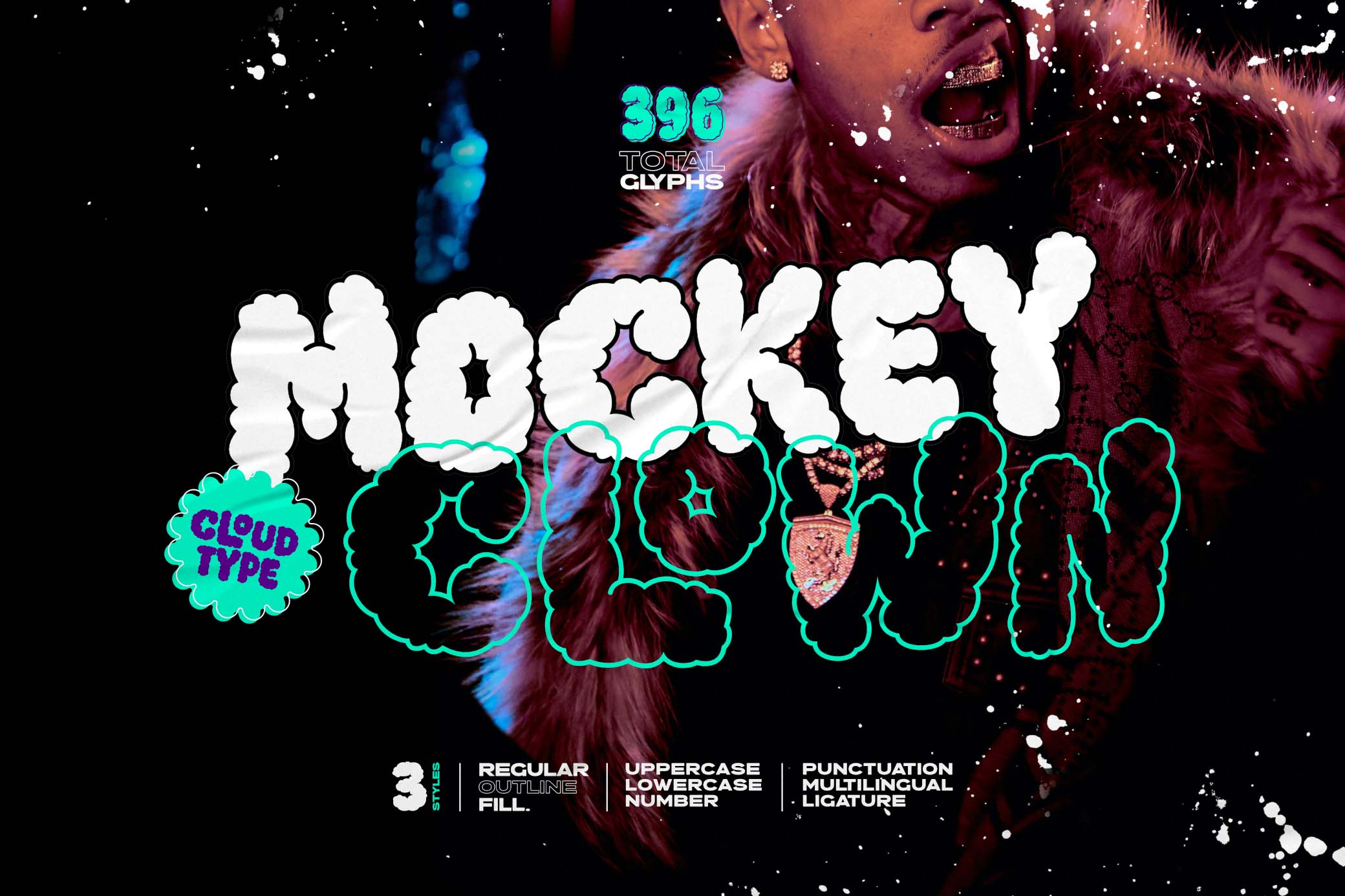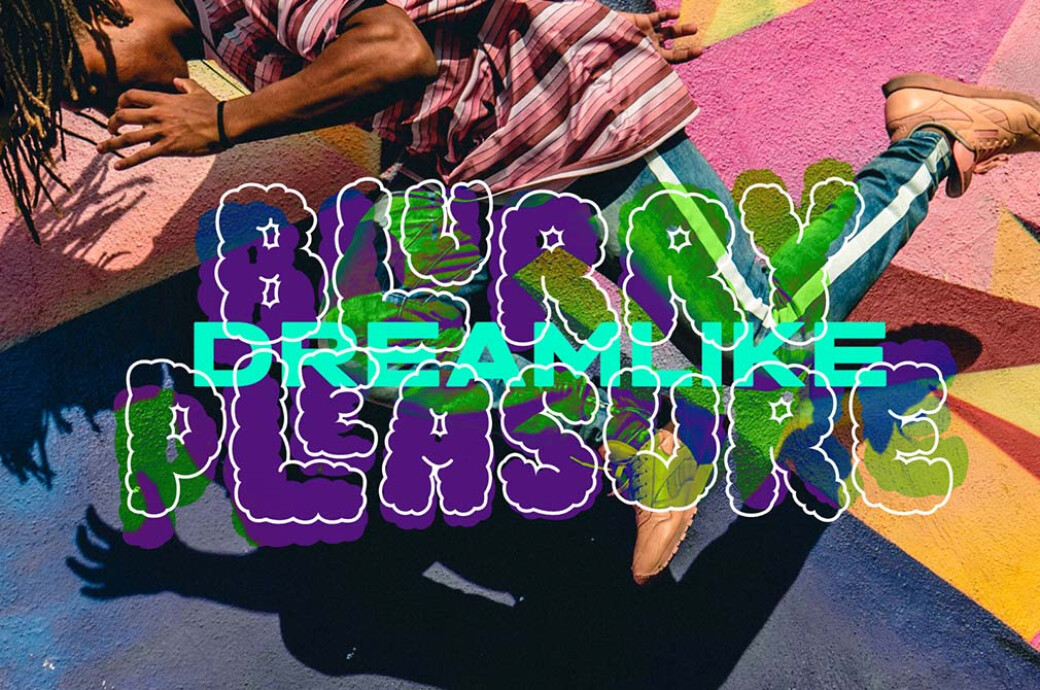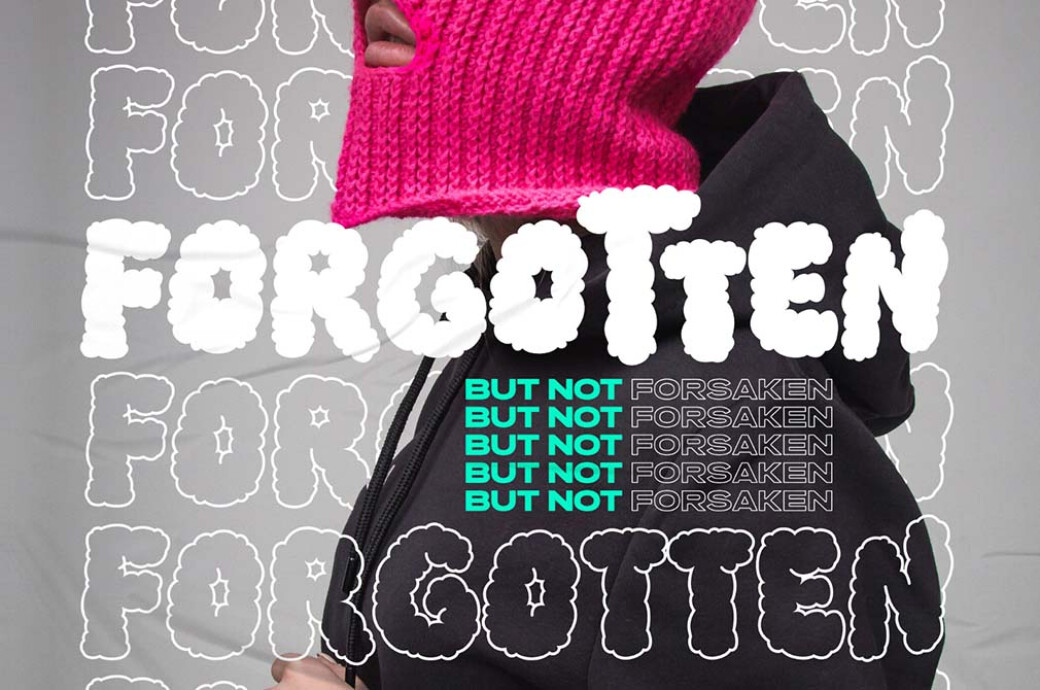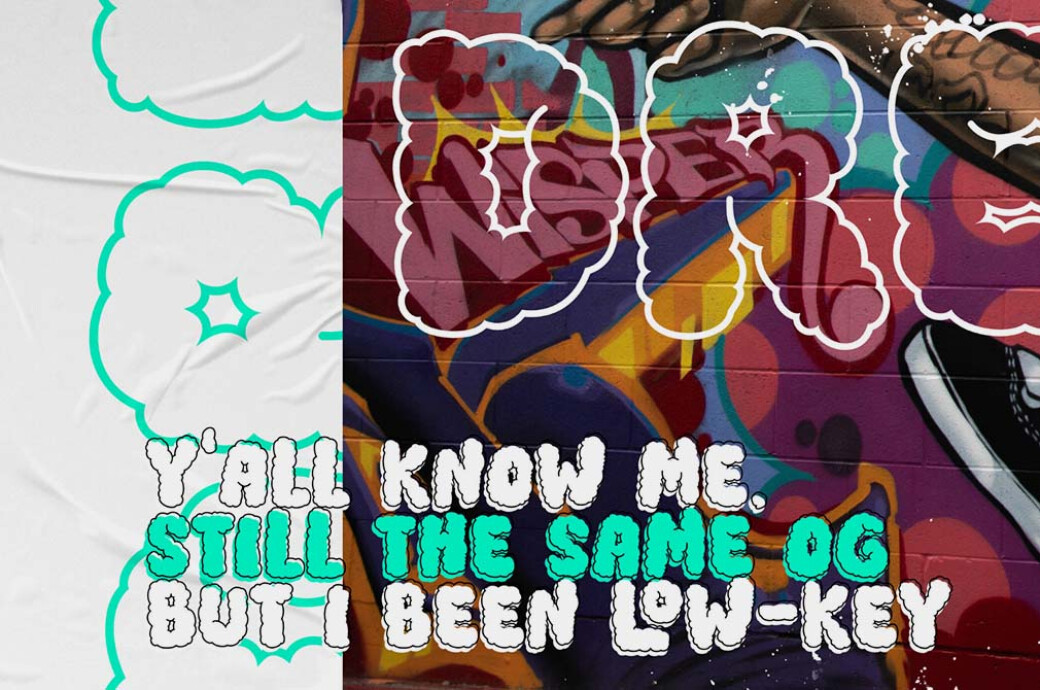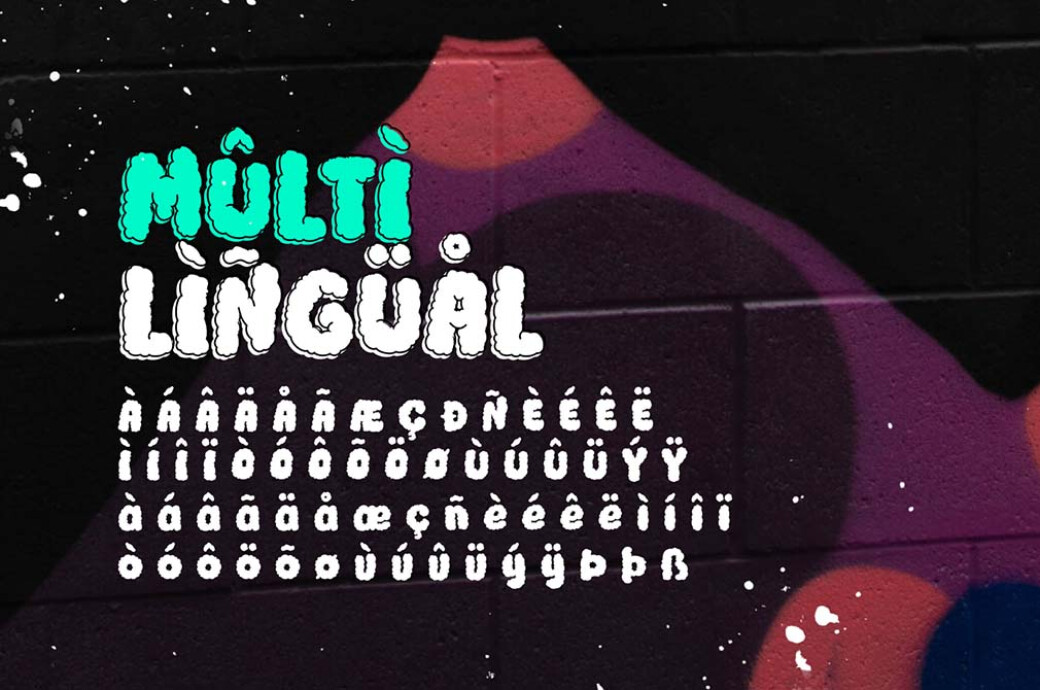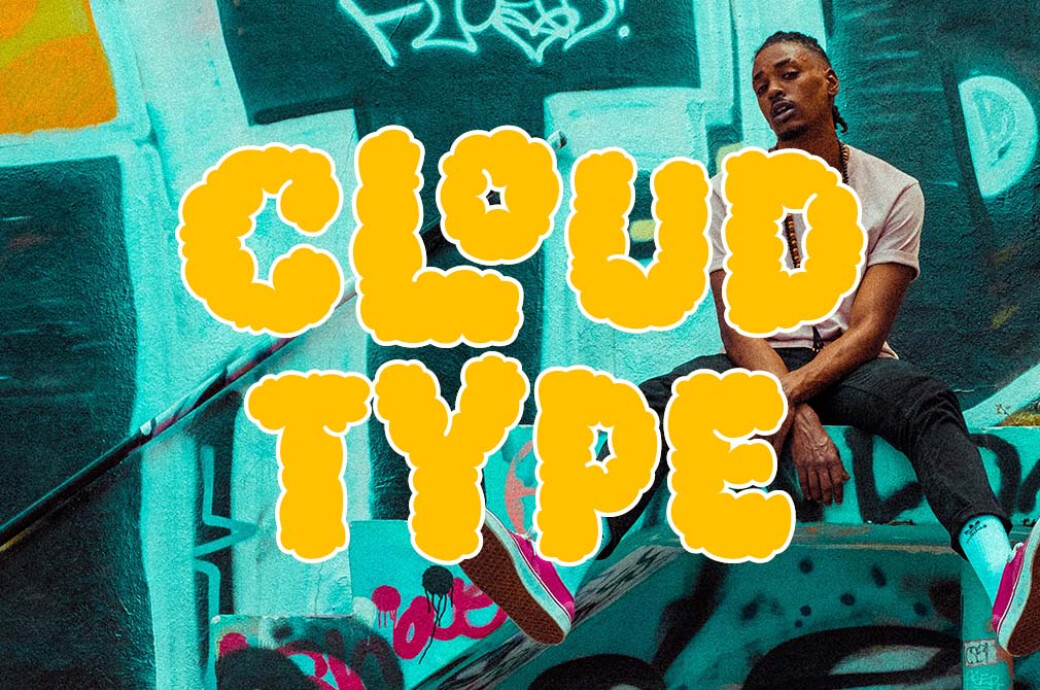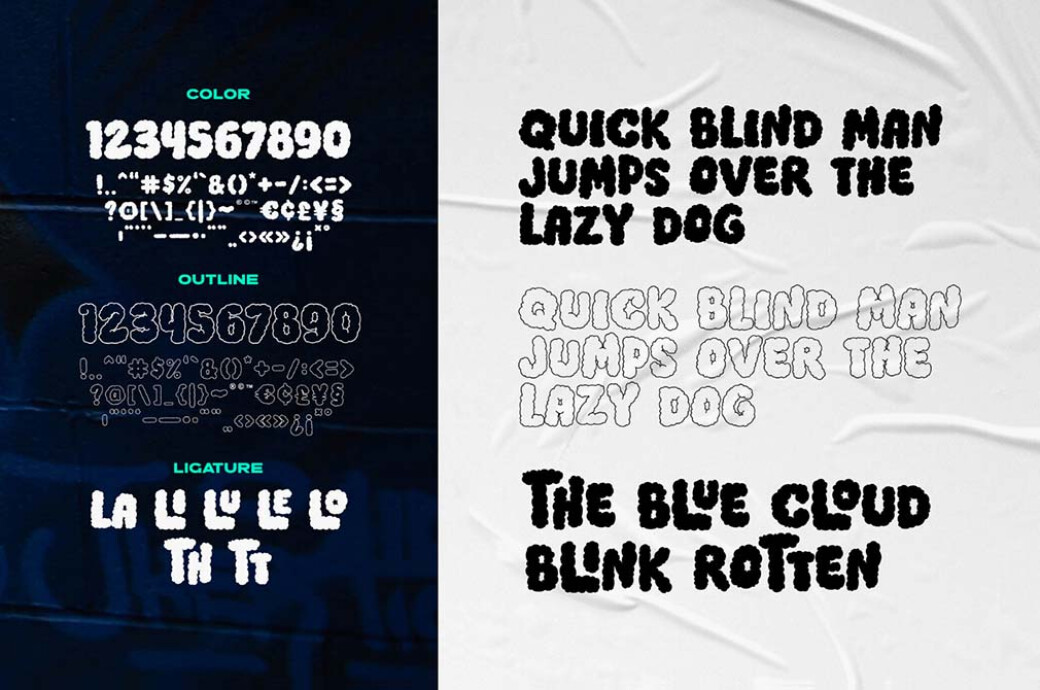
Mockey Clown — Cloud Font
Is this font moony, or is it incorrigibly badass? It all depends on how you use it, so do it wisely.It is surprisingly fascinating to watch how the same typeface can resemble soft whitecaps and hand-drawn type styles from the late 90s. Monkey Clown is a rare example of such duality, which we encourage you to explore and let into your projects. Anything: posters, music album covers, streetwear designs, children's stationery & books (yes, it will fit them too!). To satisfy your creative cravings, you will have all the necessary: 3 styles**(regular,** outline & fill), the complete character set, ligatures, and multilingual support for Latin languages.